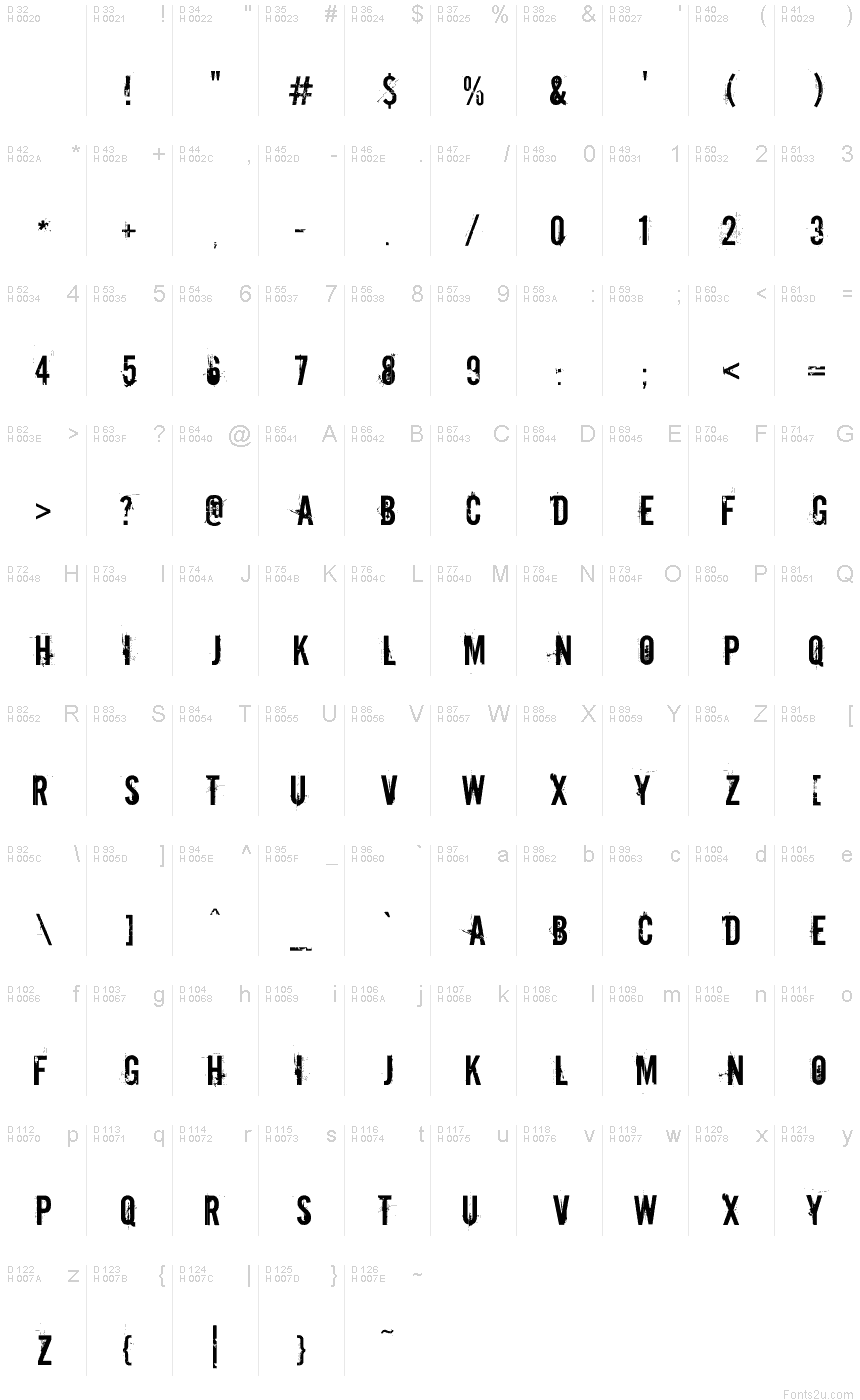
Downcome
Downcome font by Eduardo Recife is a free distorted display typeface that looks like it’s been dragged through concrete and left to dry. Tall, narrow letters slam together in a tight stack, while splatters, cracks, and eroded edges give every word a raw, weather-beaten presence. It feels loud, gritty, and decidedly analog—as if it belongs on a torn gig flyer stapled to a city wall.
Using Downcome, your titles don’t whisper; they scream. This free font shines on horror movie posters, underground band artwork, zines, skate or streetwear graphics, edgy book covers, and protest visuals that need attitude, not polish. Keep it big and bold, then pair it with a clean, neutral sans serif for small text to let the grunge texture hit even harder.